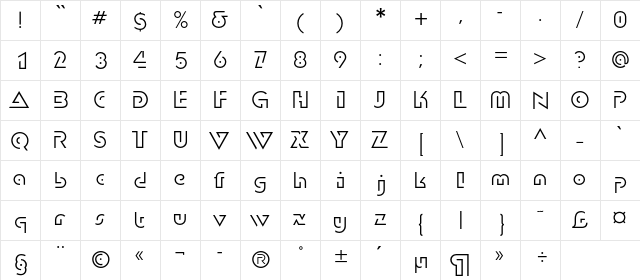
DublonLightC Regular
Design Context for DublonLightC Typeface
DublonLightC offers clean, dependable letterforms without strong stylistic allegiance, making it a practical choice for designers who need flexibility. The delicate stroke weight brings airiness and refinement to layouts.
Pro Tip: Pair DublonLightC with a font of contrasting weight or personality to build a more expressive typographic hierarchy.